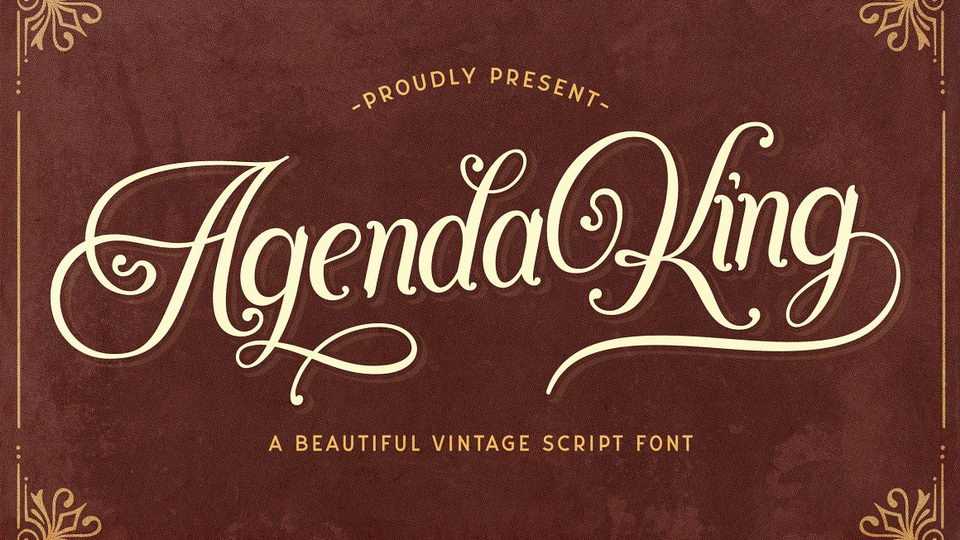
Download Agenda King font, a stunning vintage calligraphy script typeface that feels equally charming and elegant. With its incredibly versatile style Agenda King is perfect to create gorgeous wedding invitations, beautiful stationary art, eye-catching social media posts, and much more!